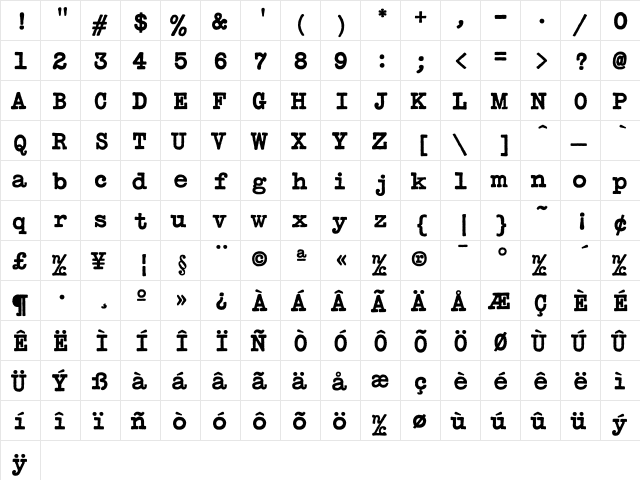
TypeWriterBoldConde Regular Font Preview
TypeWriterBoldConde Regular
TypeWriterBoldConde Regular Font Details
Design Context for TypeWriterBoldConde Typeface
TypeWriterBoldConde uses fixed-width spacing throughout, giving it the structured, systematic character associated with coding environments and technical documentation. The heavy weight commands attention and anchors typographic hierarchies.